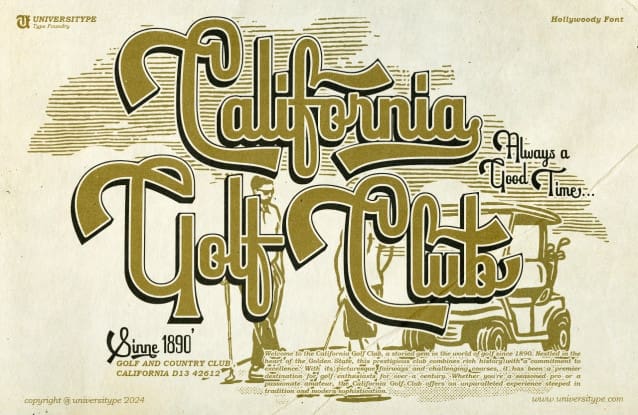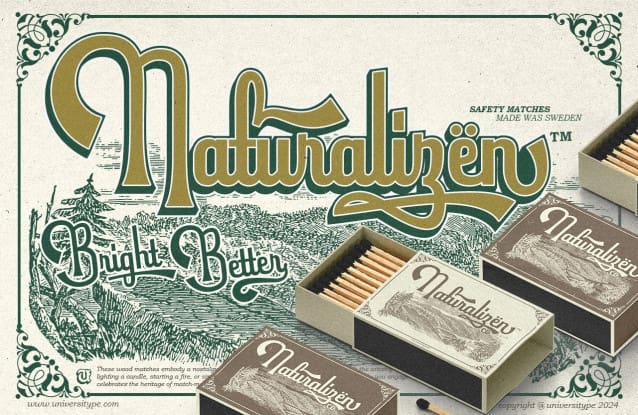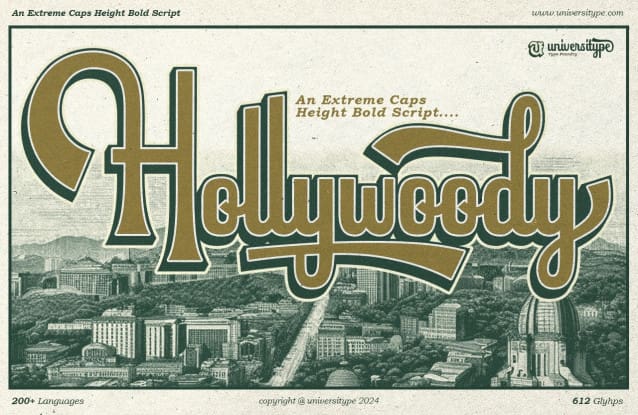
UT Hollywoody Font
UT Hollywoody Font is a tribute to the golden age of Hollywood, drawing inspiration from the striking, dramatic elements found in classic films like Sunset Boulevard. With its bold caps, sweeping curves, and vintage flair, this font encapsulates the charm, elegance, and grandeur of mid-century design, while offering modern versatility for today’s creative projects.